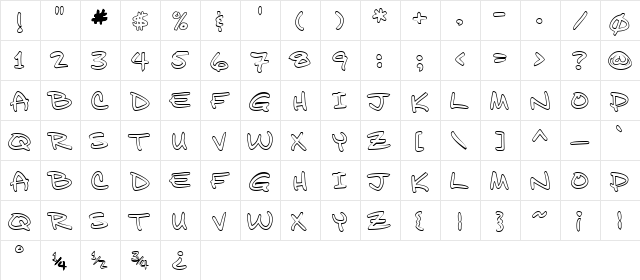
BillOutline Outline
BillOutline is built around its visual character rather than neutral utility — its distinctive forms are designed to make an impression at display sizes.
Font Pairing: Pair with a clean neutral sans-serif for body copy to let BillOutline's character lead without overwhelming the composition.
Pro Tip: Treat BillOutline as the centrepiece of your typographic hierarchy. One strong heading set in a decorative face can carry an entire layout.